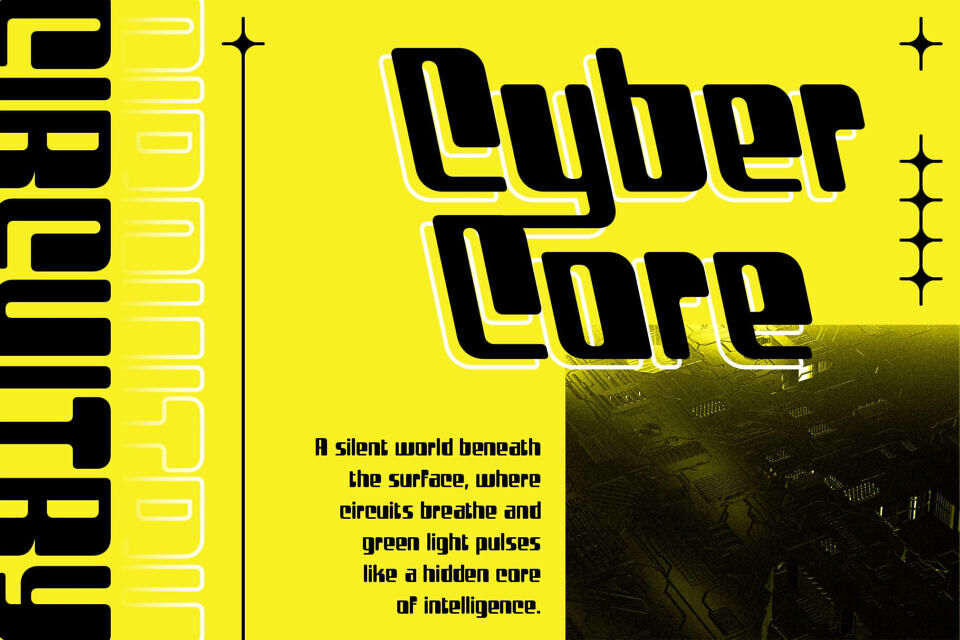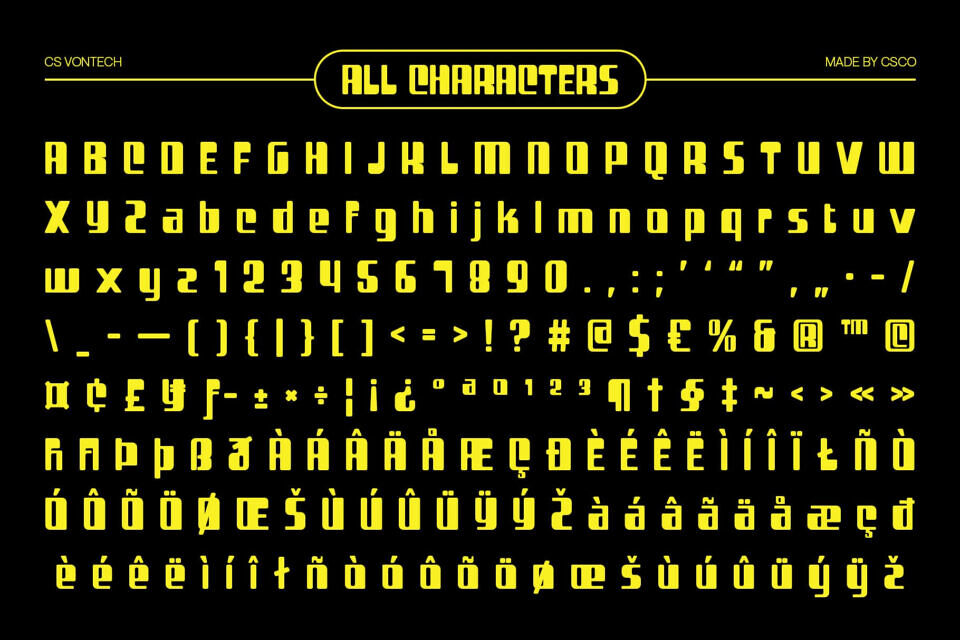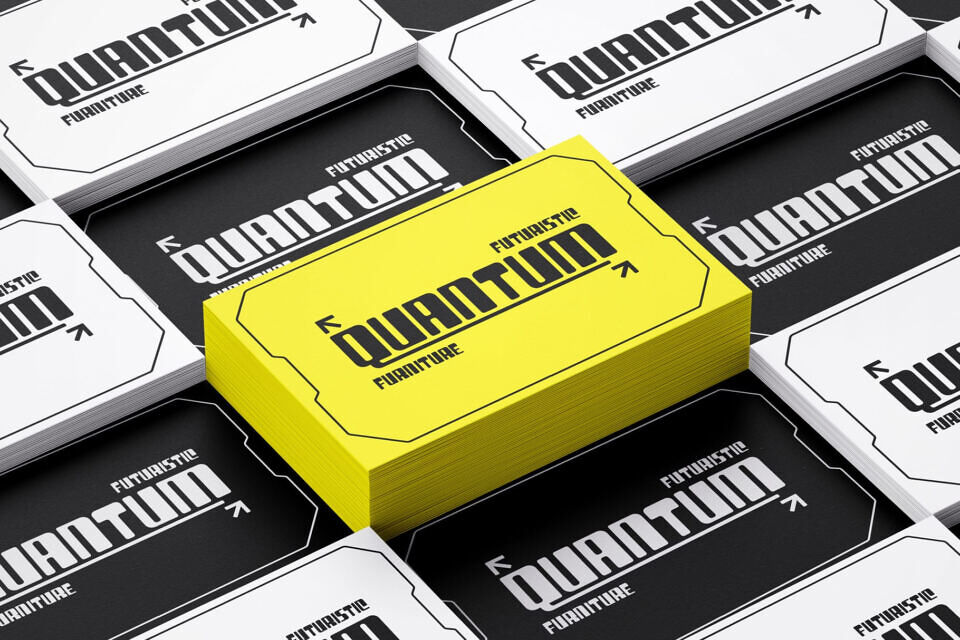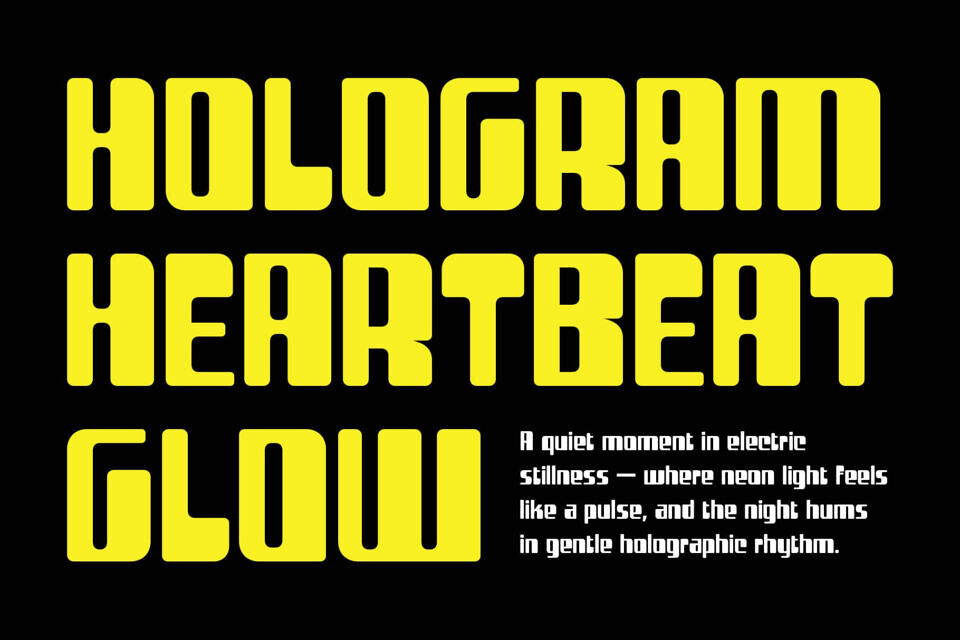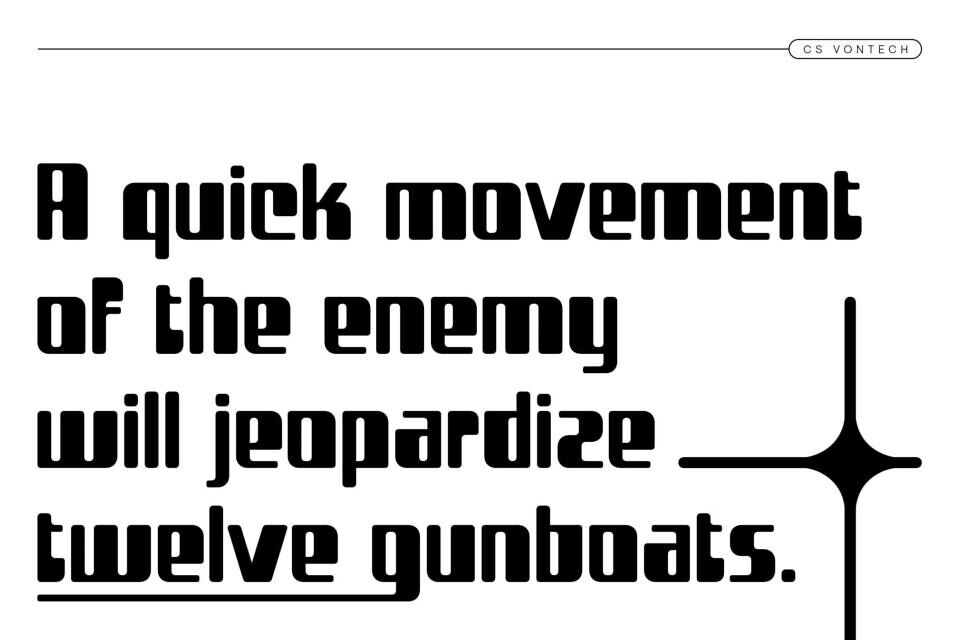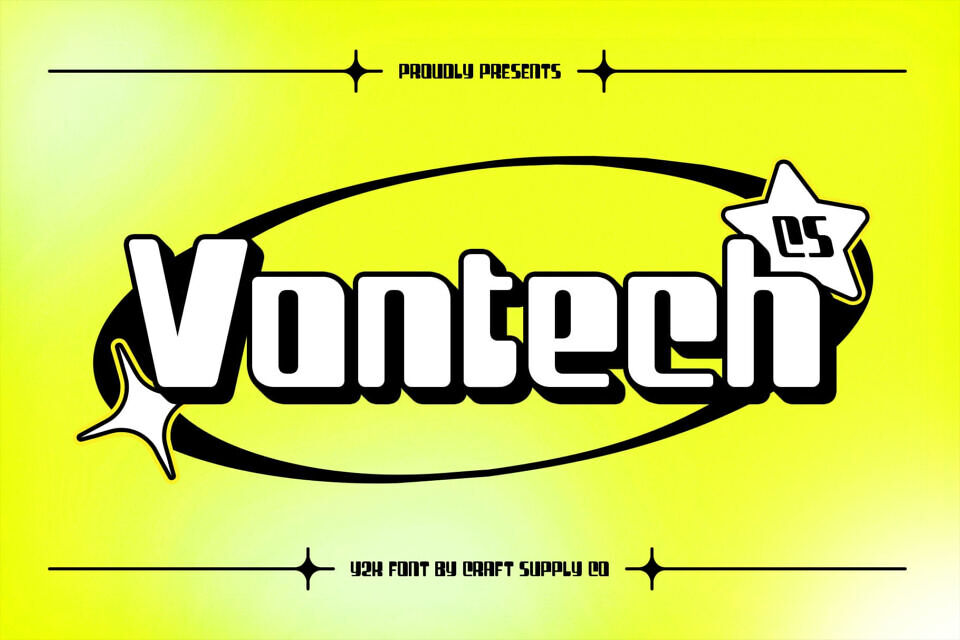
Cs Vontech Font
Vontech is a Y2K-inspired display font that captures the vibrant spirit of early 2000s design. Featuring bold outlines and strong geometric structure, it radiates energy and futuristic style, making it the perfect choice for designers who want to channel nostalgia with a modern edge.
With its techno-driven design and sharp contours, this font embodies innovation and excitement. Each letterform is crafted to exude motion and digital dynamism, reminiscent of the tech culture and futuristic visions that defined the Y2K era. This makes it ideal for gaming visuals, sci-fi posters, and digital branding seeking a bold, forward-thinking look.
The combination of bold outlines and futuristic rhythm gives this font a striking visual presence. It’s not just a font it’s an expression of confidence and creativity, perfect for designs that aim to stand out in high-energy contexts like music visuals, party events, and tech campaigns.